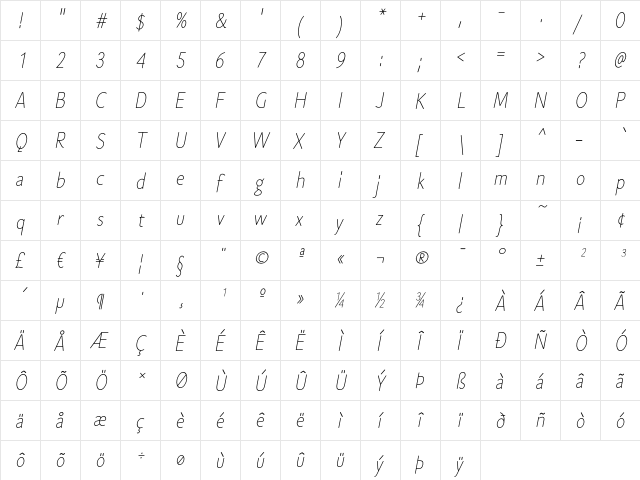
Cen Pro Light Italic Font Preview
Cen Pro Light Italic
Cen Pro Light Italic Font Details
| Foundry | Neil Summerour/Positype |
| Designer | Neil Summerour |
Design Context for Cen Pro Light Typeface
Cen Pro Light offers clean, dependable letterforms without strong stylistic allegiance, making it a practical choice for designers who need flexibility. Its italic angle brings a sense of urgency and motion to the letterforms. Its slender proportions lend an understated elegance to any composition.
Pro Tip: Use Cen Pro Light for emphasis, pull quotes, and subheadings where its slanted energy can add rhythm to the layout.